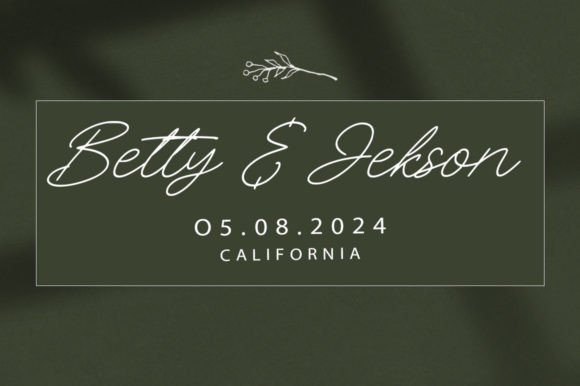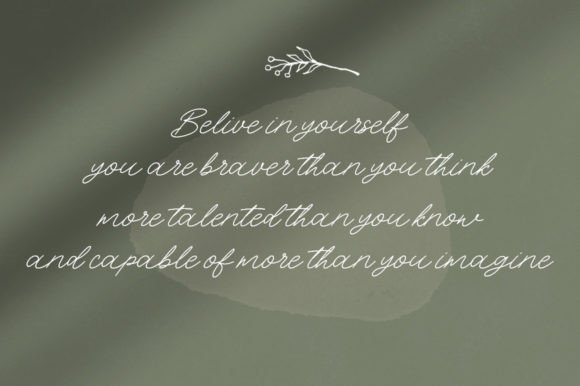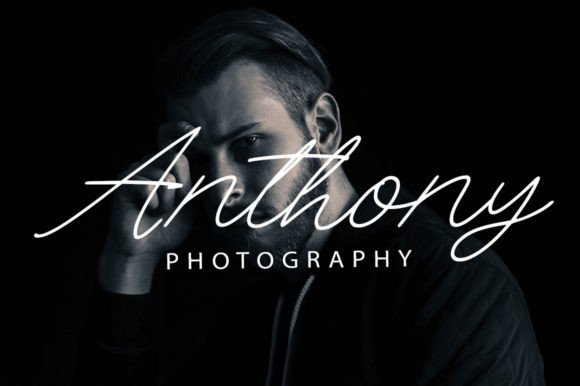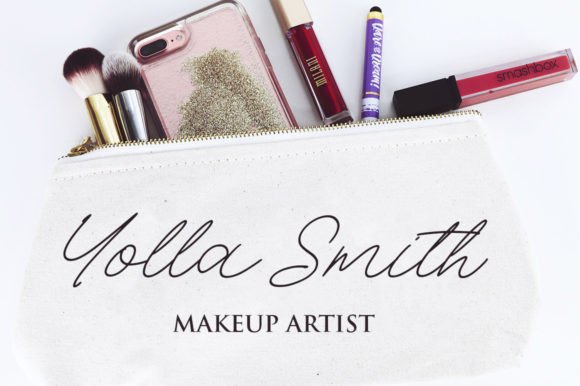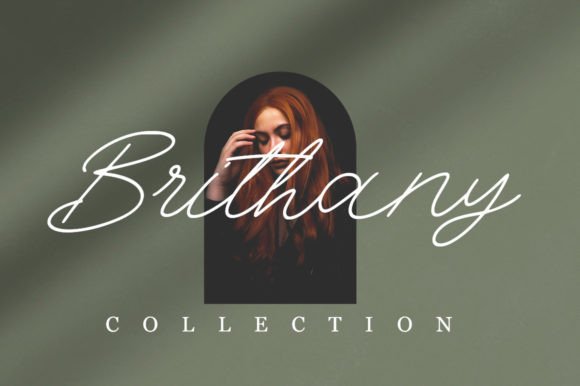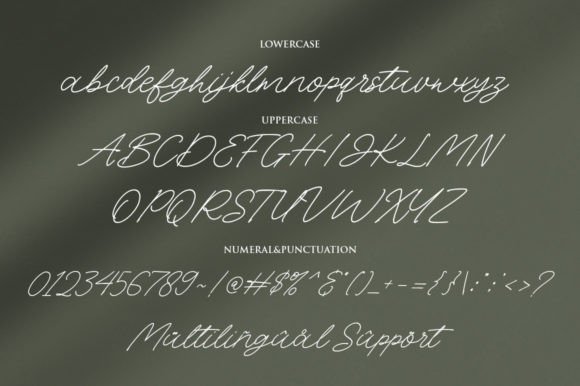
Belistha Font: Elevate Your Designs with Style and Versatility
In the world of design, fonts play a crucial role in conveying messages, evoking emotions, and creating visual identities. For designers, crafters, and creative enthusiasts, finding the perfect font can be a game-changer. If you’re on the hunt for a stylish, versatile, and highly customizable font, look no further than Belistha. This stunning monoline font is designed to elevate your designs, whether you’re working on watermarks, invitations, stationery, wedding designs, social media posts, advertisements, product packaging, or more.
The Beauty of Belistha Font
Belistha is more than just a font; it’s a design companion that offers a wide range of creative possibilities. Its monoline style gives it a sleek, modern look that’s perfect for designs that require a touch of elegance and sophistication. With Belistha, you can add a professional touch to your work, making it stand out in a crowded digital landscape.
One of the standout features of Belistha is its incredible versatility. This font is perfect for:
- Watermarks: Add a touch of elegance to your photos and designs with Belistha’s delicate lines.
- Invitations: Create stunning invitations for special events, weddings, or parties with this beautiful font.
- Stationery: Elevate your stationery designs, including business cards, letterheads, and more.
- Wedding Designs: Make your wedding designs, such as wedding cards, banners, and decorations, truly unforgettable.
- Social Media Posts: Stand out on social media with eye-catching posts and stories.
- Advertisements: Create visually appealing ads that grab attention.
- Product Packaging: Add a touch of style to your product packaging and labels.
- Product Design: Use Belistha to create stunning product designs, including logos and branding materials.
- Labels: Design beautiful labels for your products or gifts.
- Photography: Add a professional touch to your photography with elegant watermarks and overlays.
- Logos: Create unique and memorable logos for your business or brand.
- Special Events: Make your event designs, such as flyers, posters, and banners, truly special.
Advanced Features for Customization
Belistha comes with a range of additional features that allow you to customize your text to perfection. One of the most significant advantages of this font is that it’s PUA (Private Use Area) encoded. This means you can easily access all the amazing glyphs and ligatures, giving you the flexibility to create unique and personalized designs.
With Belistha, you can:
- Access a wide range of glyphs and ligatures to add a personal touch to your designs.
- Customize your text with ease, making it perfect for your specific design needs.
- Experiment with different styles and combinations to create truly unique designs.
Why Choose Belistha Font?
So, why should you choose Belistha font for your design projects? Here are just a few reasons:
- Style and Sophistication: Belistha adds a touch of elegance and sophistication to your designs.
- Versatility: Use Belistha for a wide range of design projects, from watermarks to logos.
- Customization: With PUA encoding, you have complete control over your text, allowing for endless customization possibilities.
- Professionalism: Elevate your designs to a professional level with Belistha’s sleek, modern look.
Belistha font is a game-changer for designers, crafters, and creative enthusiasts. Its stylish monoline design, versatility, and advanced features make it the perfect choice for a wide range of design projects. Whether you’re looking to create stunning invitations, elegant watermarks, or professional logos, Belistha has got you covered. With its PUA encoding and extensive customization options, you can let your creativity shine and produce truly unforgettable designs. So why wait? Discover the power of Belistha font and take your designs to the next level.